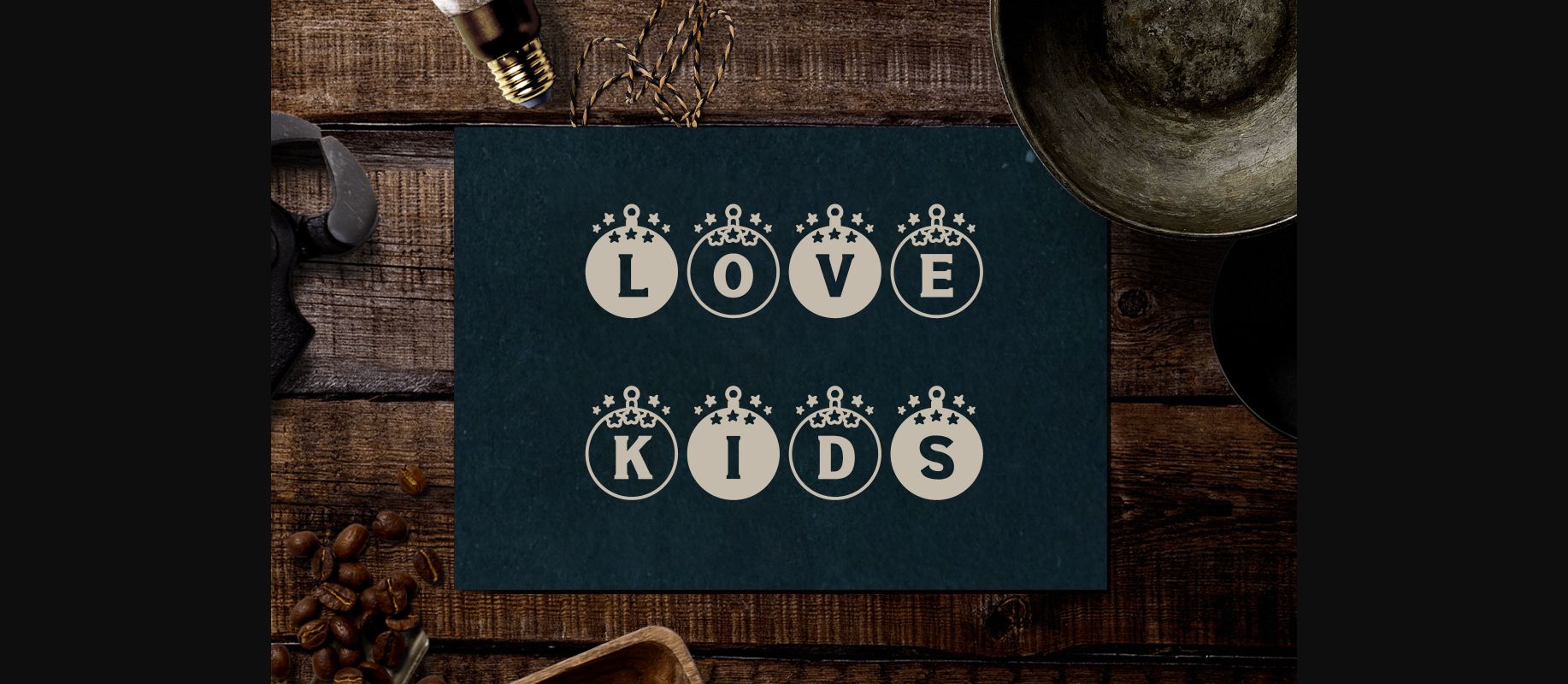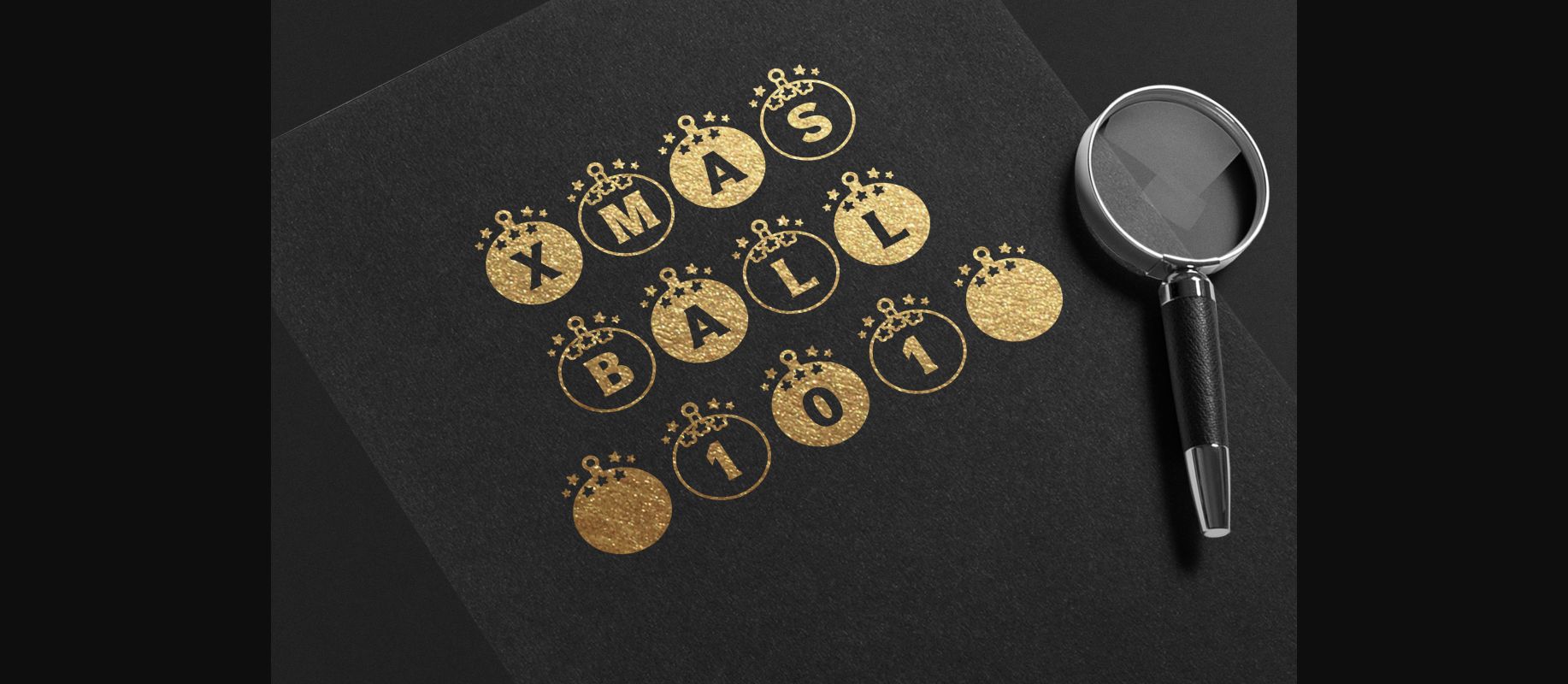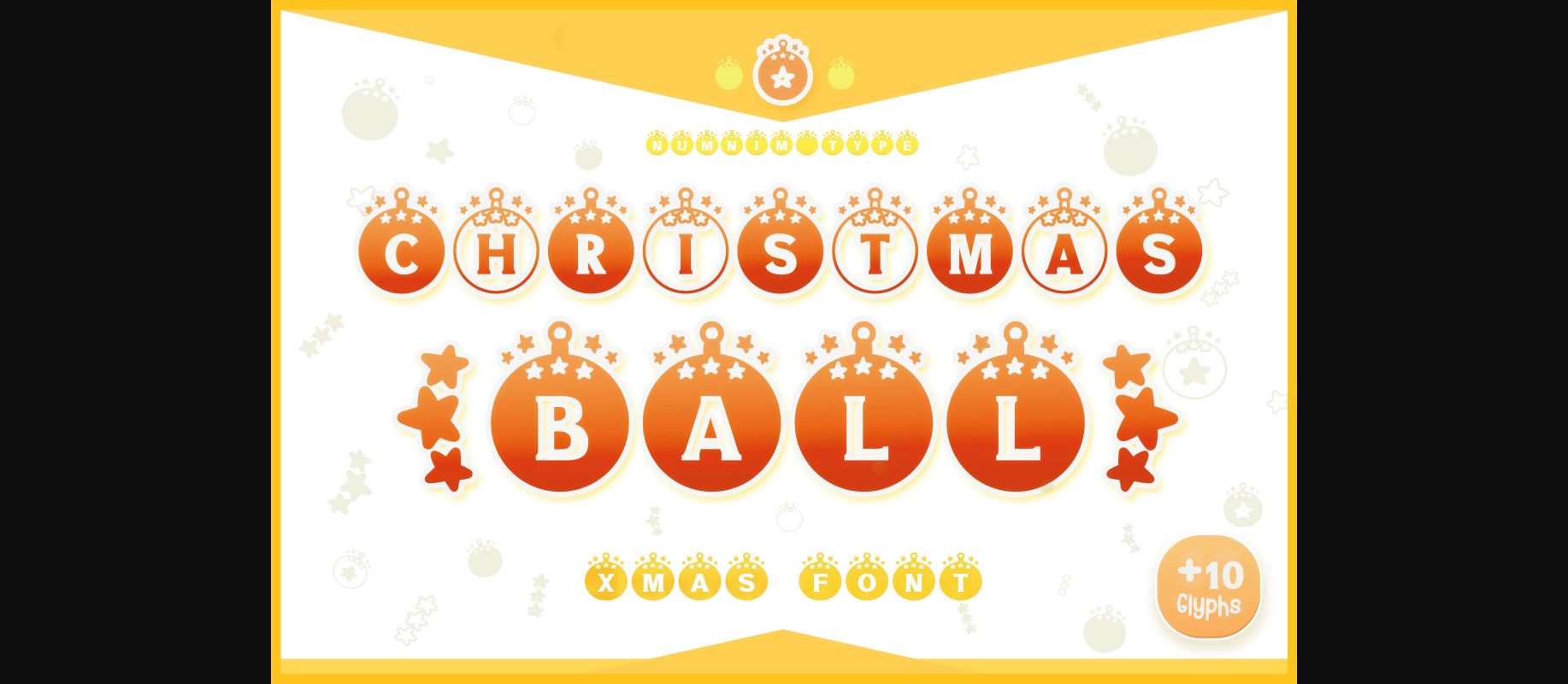
About Christmas Ball Font
Christmas Ball is a cool, festive and fun decorative font. It is PUA encoded which means you can access all of the glyphs and swashes with ease!